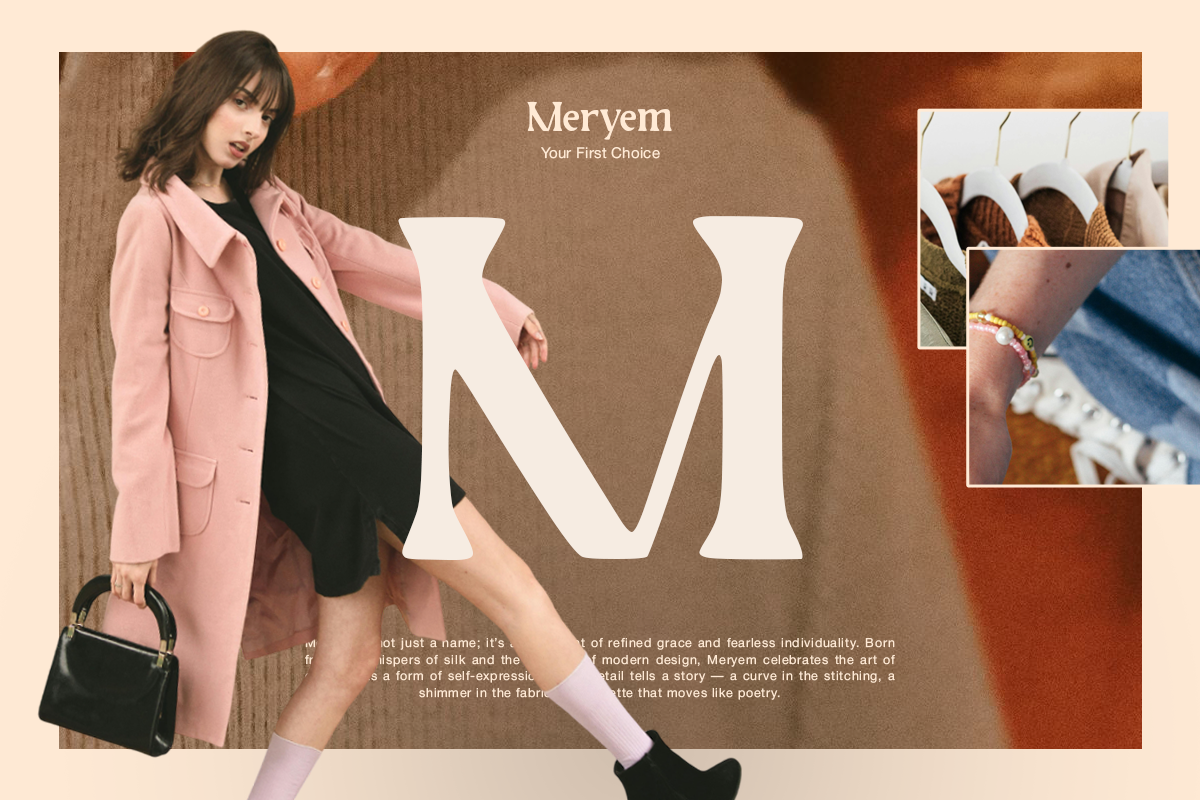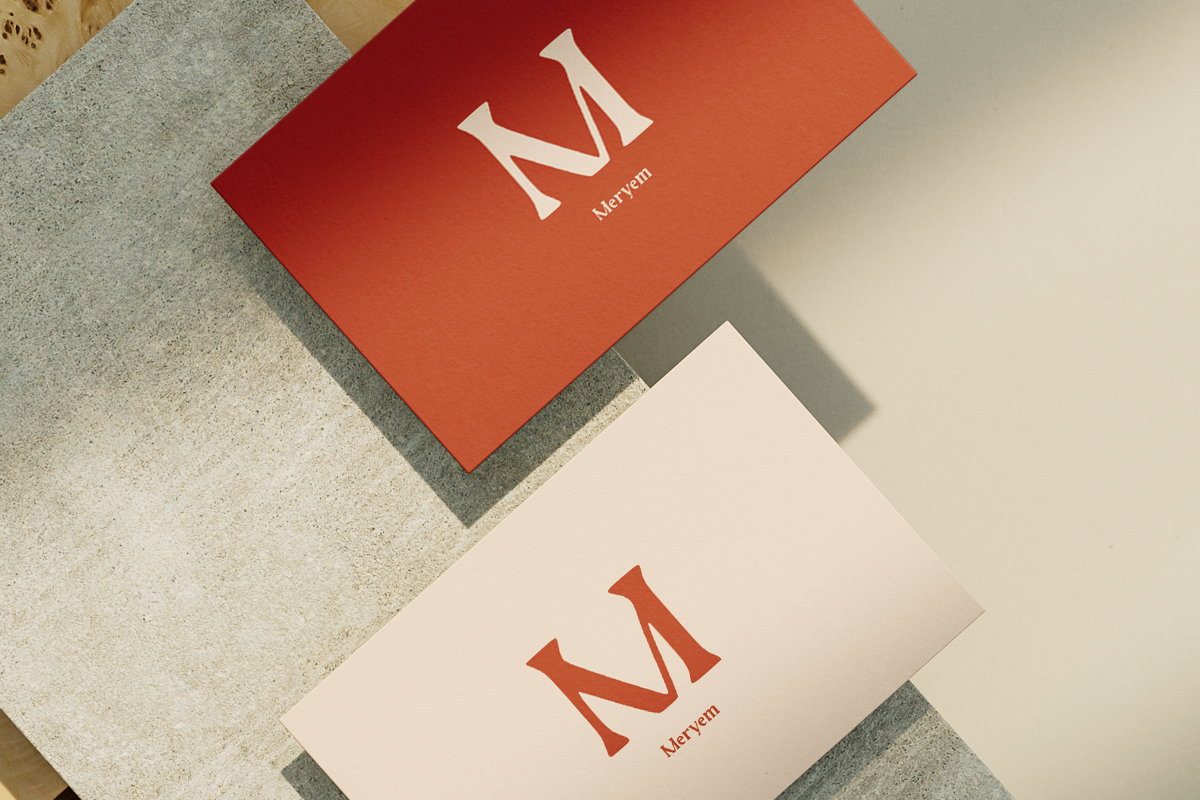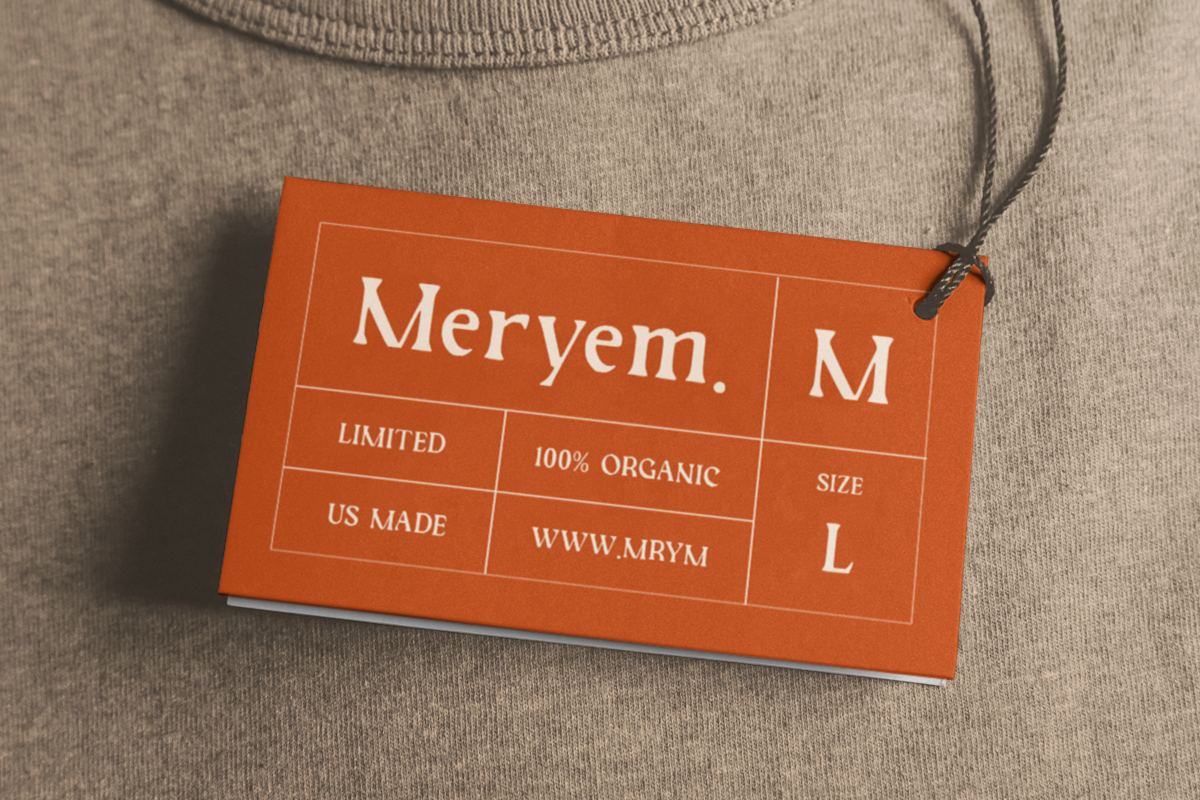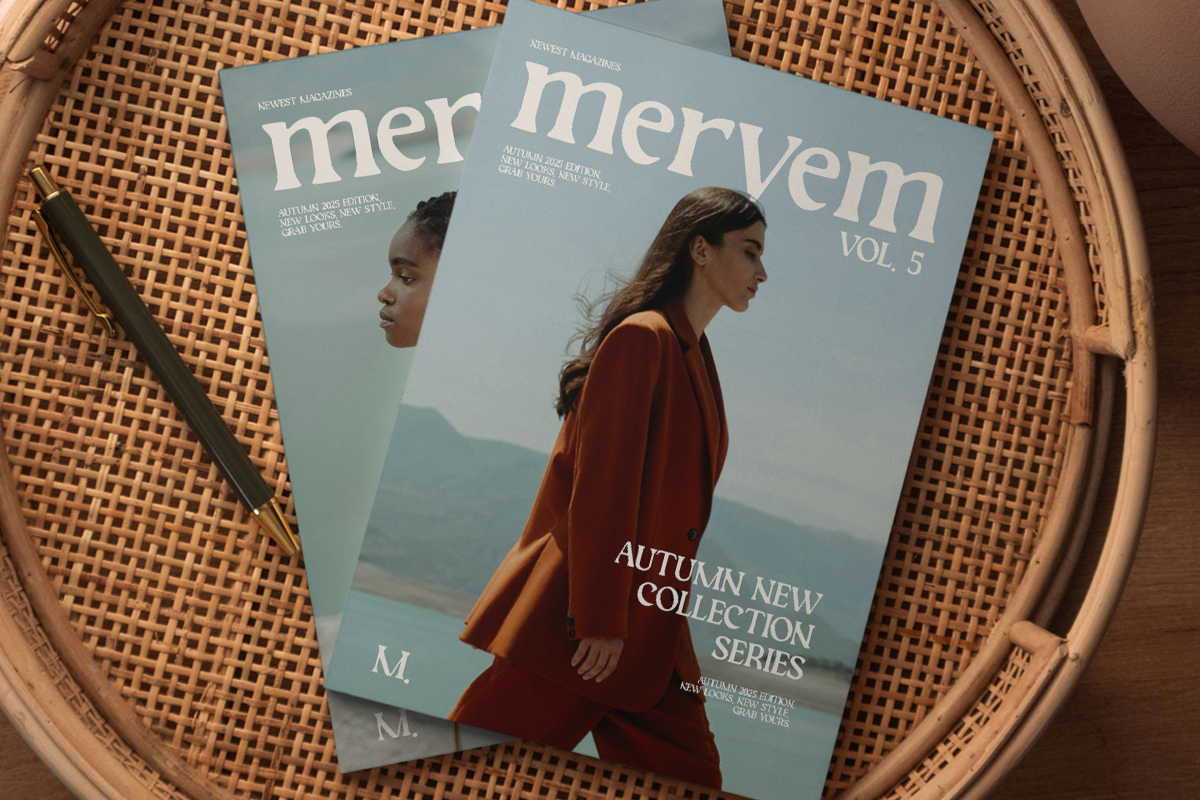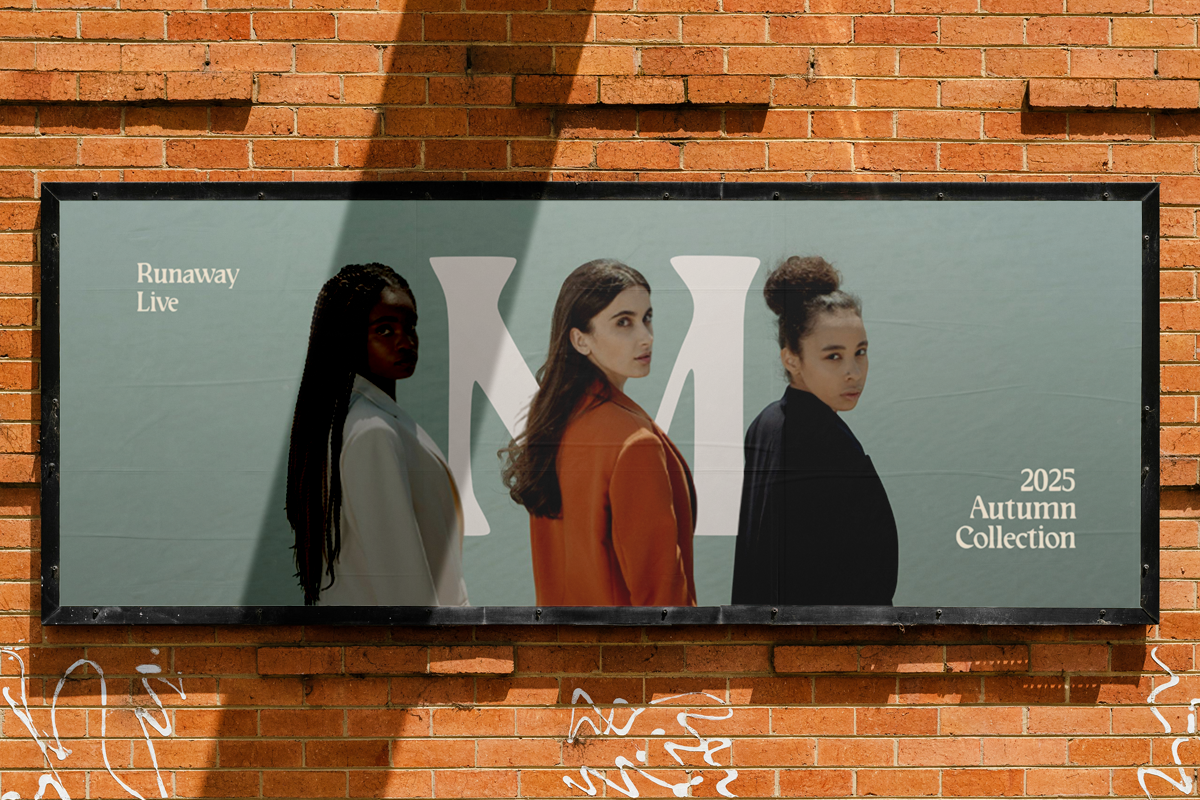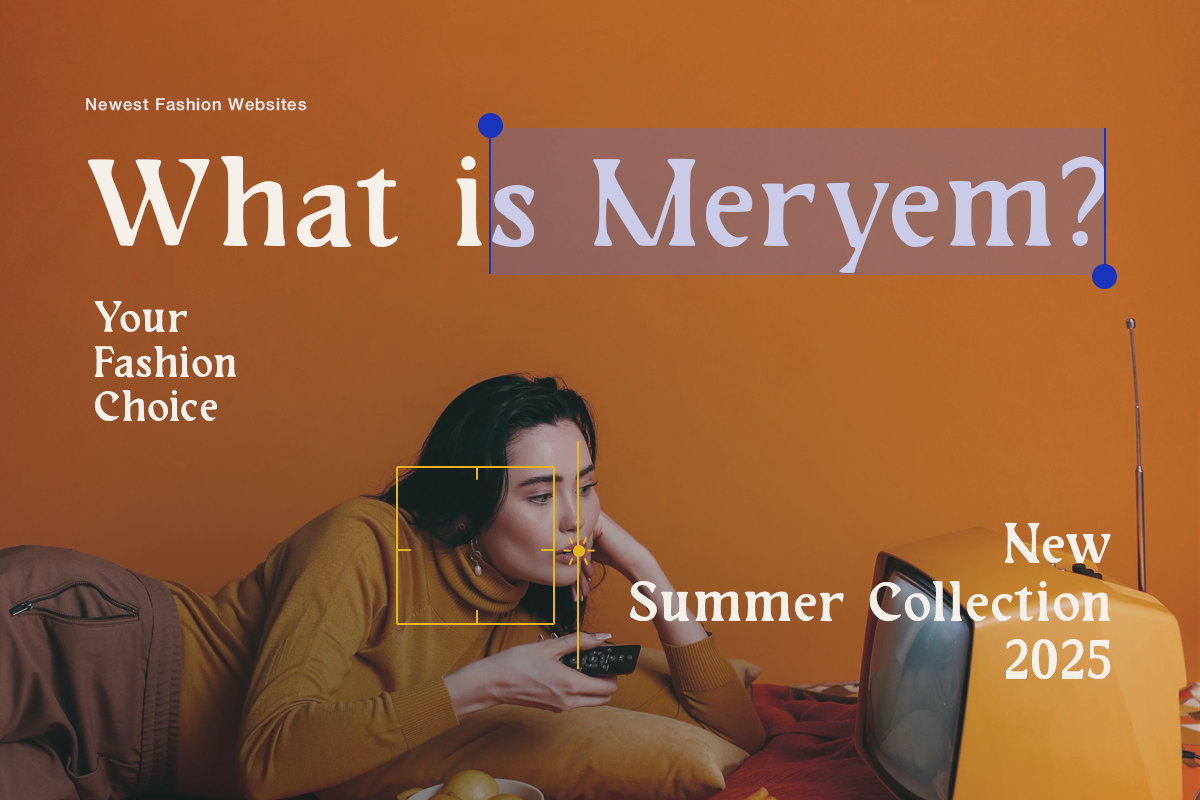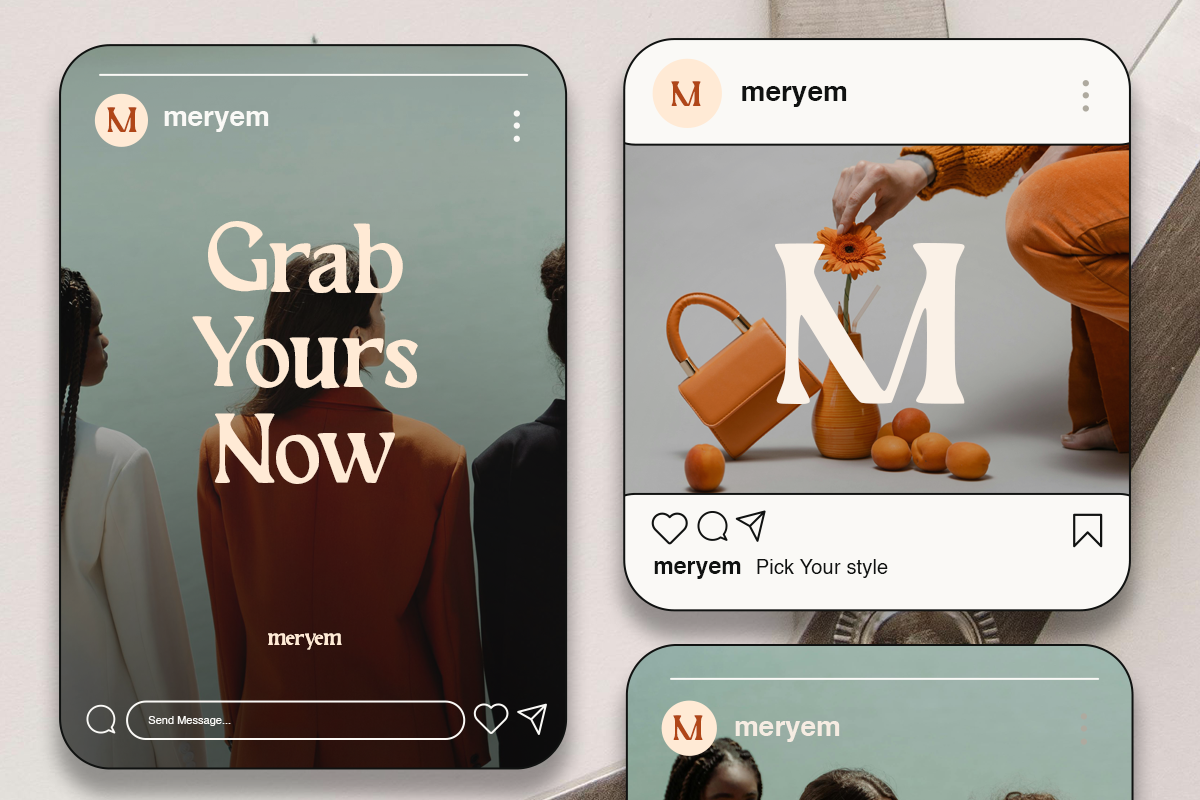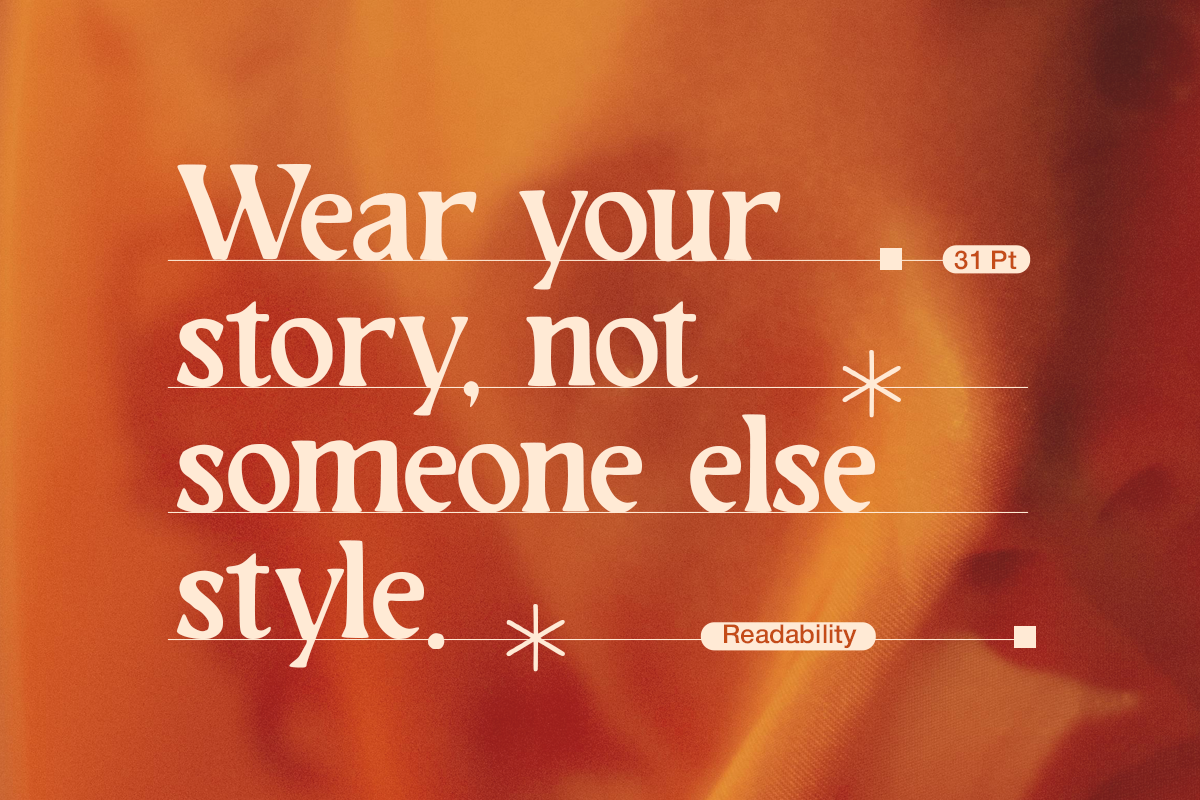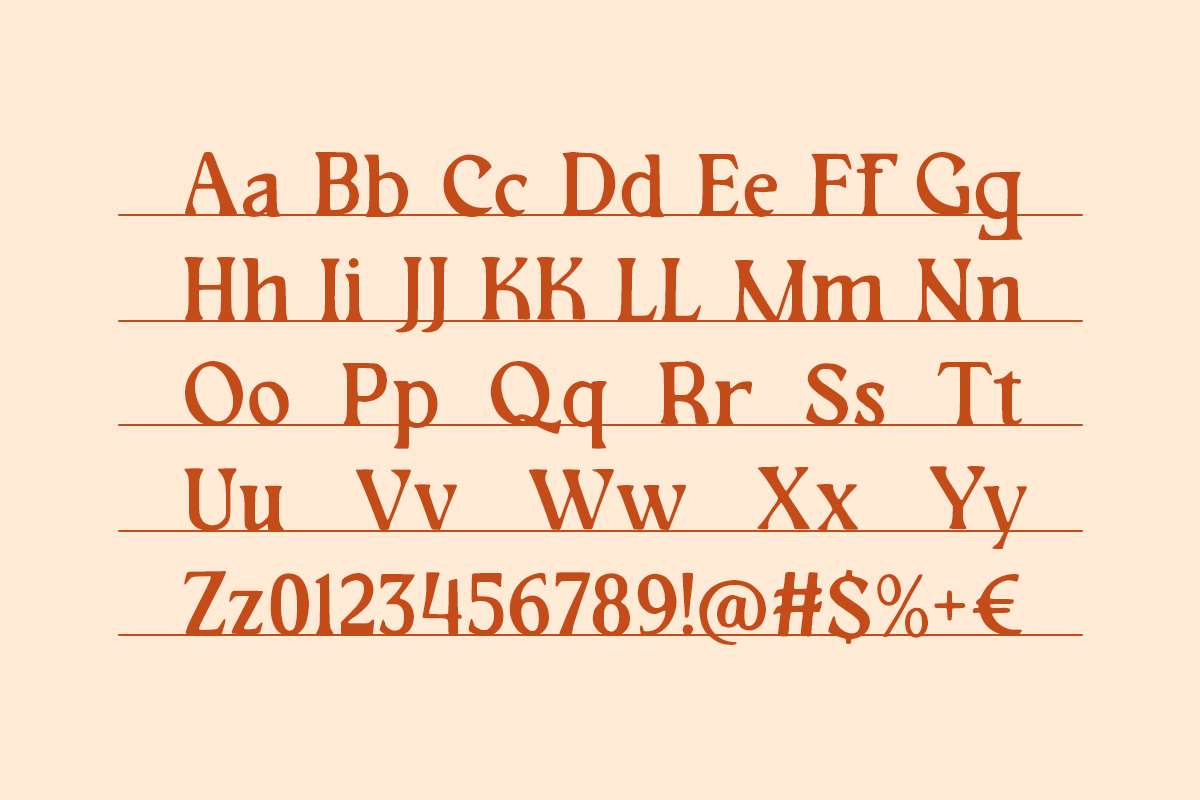
Garolia - Editorial Fashion Serif
Garolia is an elegant serif font crafted to bring sophistication and timeless style to your editorial and fashion-inspired designs. With its refined letterforms and modern classic aesthetic, Garolia embodies high-end branding and artistic expression — perfect for magazines, fashion portfolios, product packaging, or luxury logo designs.
This font comes in 1 style: Regular, featuring uppercase, lowercase, numbers, punctuation, and multilingual support. Its graceful proportions and stylish curves make Garolia a versatile choice for both print and digital media, especially where beauty and professionalism meet.